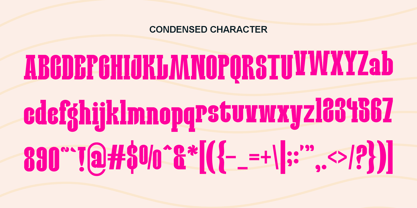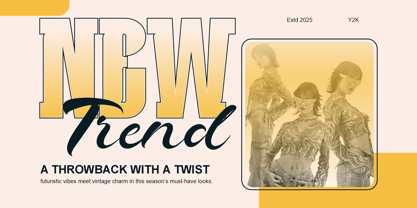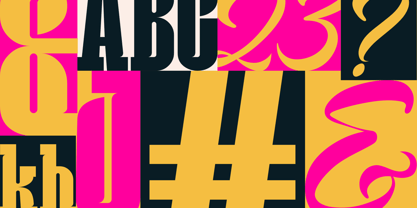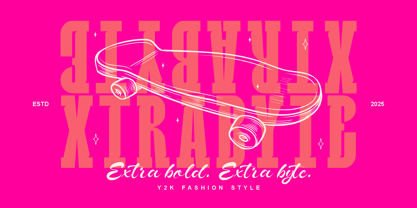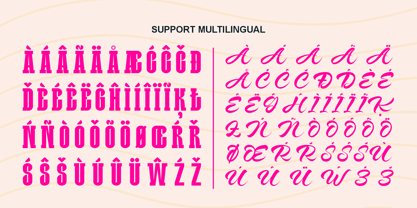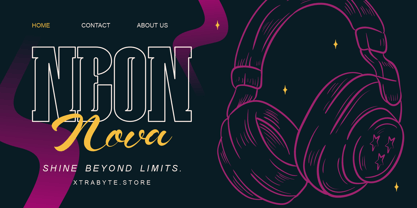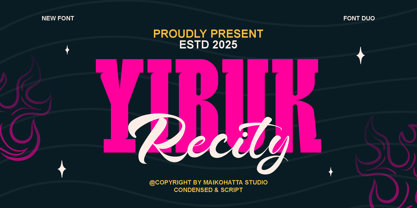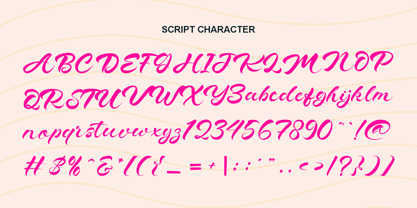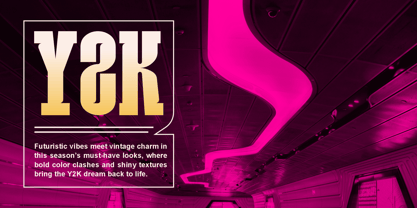
Yibuk Recity
by Maikohatta
The Yibuk Recity Font Family was designed by Gilang Ternadho and published by Maikohatta. Yibuk Recity contains 2 styles and family package options. More about this family
Yibuk Recity – Bold Condensed & Script Font Duo Yibuk Recity is a striking font duo that combines a bold condensed display style with a smooth script companion. Perfectly balanced between strength and elegance, this pair is designed to make your typography stand out with attitude and charm. The condensed style delivers a powerful, modern feel ideal for titles, posters, and logos, while the script style adds a touch of sophistication and fluidity — perfect for pairing in branding, packaging, or editorial designs. Bring your creative projects to life with Yibuk Recity’s dynamic contrast and versatile character combinations.
Designers: Gilang Ternadho
Foundry: Maikohatta